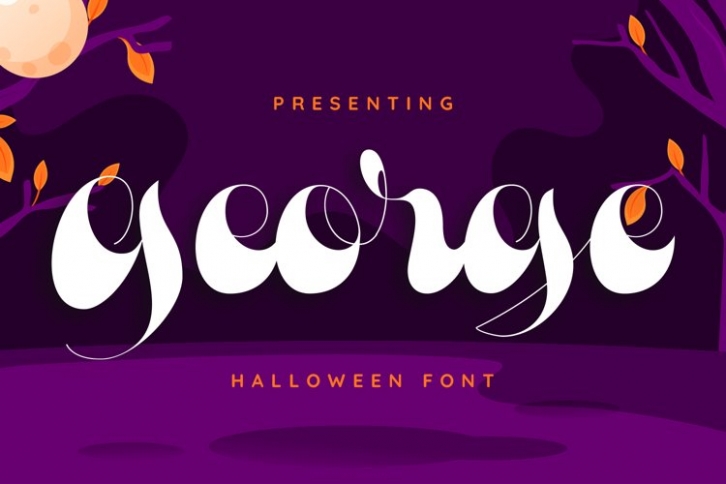
George is a gorgeous font that was realeased on October 10, 2021. The font can be used in many style contexts and design environments. Perfect for invitations, magazines, websites, logos, and more! It was designed by plusstore and the file size is 13.2 MB. Thanks for checking out this font!